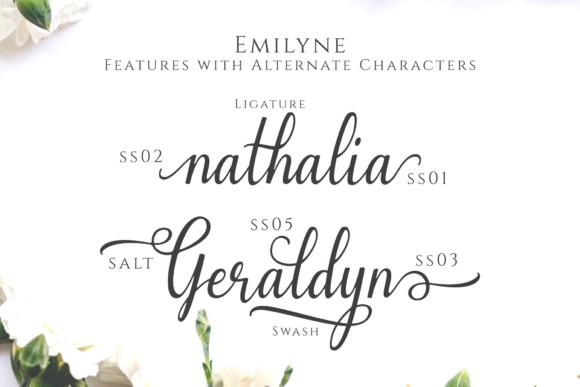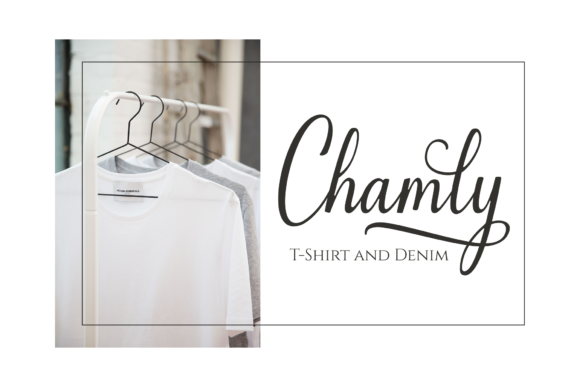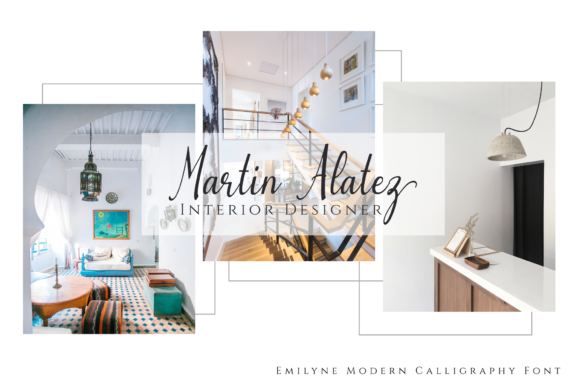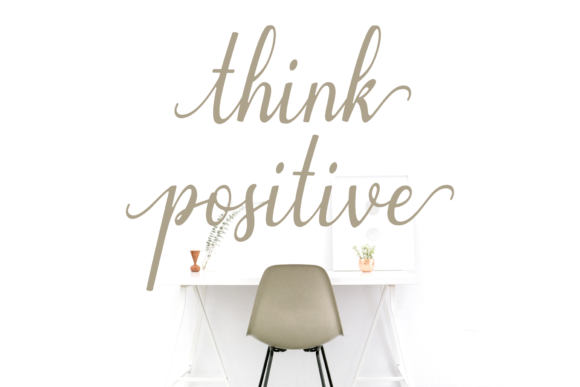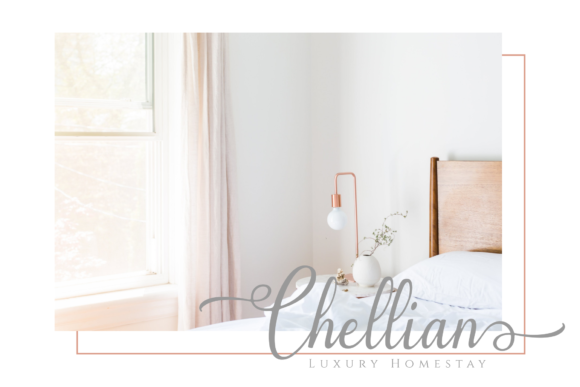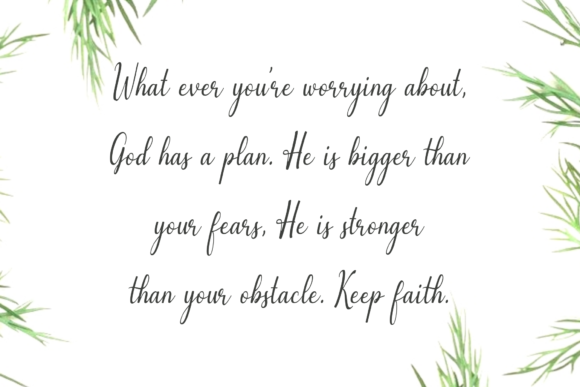
The Emilyne Font: A Sweet and Elegant Calligraphy Font for Your Creative Projects
Have you ever been in the middle of working on a design project, and suddenly, you’re stuck on finding the perfect font? I recall a particularly frustrating experience while designing a wedding invitation for a client. The invitation needed to exude elegance and sophistication, but no matter which font I chose, it just didn’t feel right. That’s when I discovered the Emilyne font, a beautiful hand-lettered calligraphy font that has since become a staple in my design toolkit.
A Personal Review of Emilyne Font
The Emilyne font is a sweet and elegant calligraphy font that includes swashes and alternates, which can be used to give your design a beautiful and sophisticated look. Here are some things I love about this font:
- ✨ Elegant and refined design that’s perfect for high-end projects
- ✅ Includes swashes and alternates for added versatility
- 💕 Perfect for logos, product packaging, wedding invitations, branding, headlines, signage, labels, signatures, book covers, posters, quotes, and more
- 👍 Highly legible, even at smaller font sizes
While the Emilyne font is exceptional, there are a few minor quirks to be aware of:
- ⚠️ Some swashes and alternates may not work well with certain font sizes or styles
- 🤔 Limited support for non-English characters
The Story Behind Emilyne Font
The Emilyne font was designed by a talented type designer who wanted to create a beautiful, elegant calligraphy font that would inspire creativity and sophistication. The designer’s inspiration came from traditional calligraphy and hand-lettering techniques, combined with modern typography principles. The result is a stunning font that’s perfect for a wide range of creative projects.
| Font Name | Emilyne Font |
| Author | Sibelumpagi Studio |
| Is the Emilyne font suitable for body text? | While the Emilyne font is highly legible, it’s primarily designed for display purposes. For body text, you may want to consider a more traditional serif or sans-serif font. |